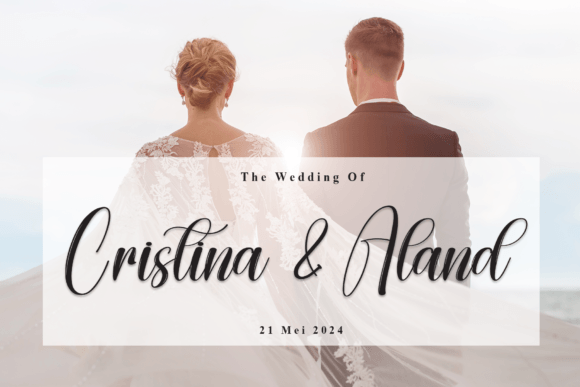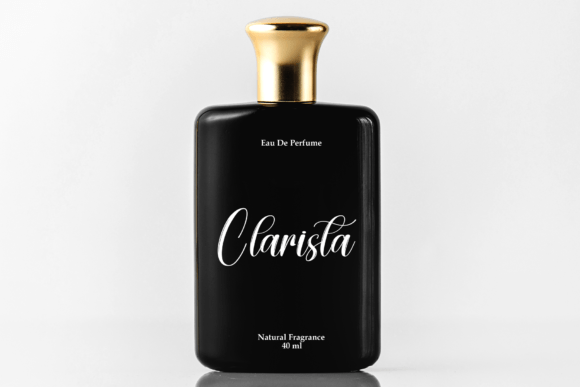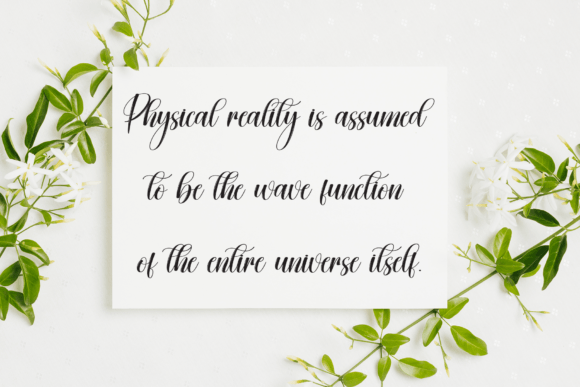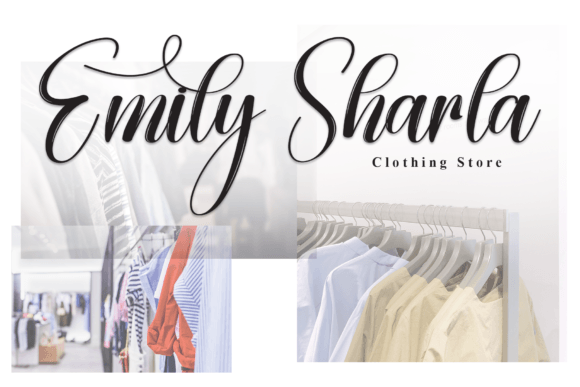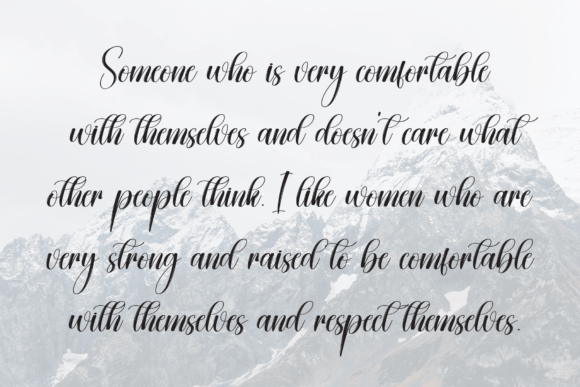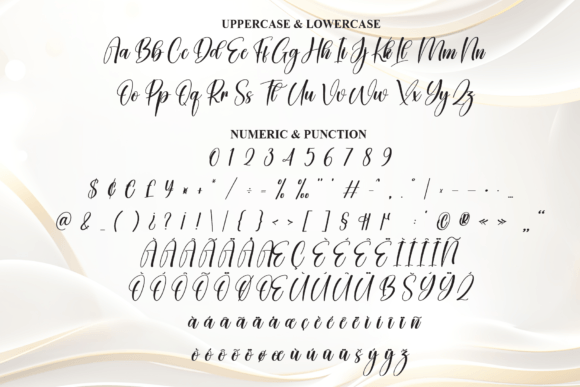
The Perfect Font for Elevating Your Designs
There’s nothing quite like the thrill of creating something from scratch – the blank page, the endless possibilities, the rush of inspiration. For designers, this moment is a sacred one, full of promise and potential. And sometimes, all it takes is the right font to bring a project to life.
Enter the Branding Font, a modern and charming handwritten font that exudes elegance and sophistication. Perfect for upscale invitations, personal branding, and chic editorial designs, this font is a designer’s dream come true. Its graceful, flowing strokes and refined character make it an instant favorite among creatives, who appreciate its ability to add a touch of warmth and personality to any project.
Whether you’re working on a high-end campaign or a personal passion project, the Branding Font is a valuable addition to your toolkit. Its unique charm and sophistication make it the perfect choice for designers who want to elevate their work and leave a lasting impression.
Branding Font Key Features
- Unique Characteristics: Features a custom-designed letterform with subtle flair and rounded edges, creating a friendly and approachable aesthetic.
- Weight and Style Options: Offers a range of weights and styles, including Light, Regular, Bold, and Italic, allowing designers to create visually appealing and consistent typography.
Branding Font Review
I recently had the chance to work with the ‘Branding Font’ and here’s my honest review.
- ✨ Unique style: The font has a distinct, modern aesthetic that can add a touch of sophistication to any brand.
- ✨ Customizable: The font is highly customizable, allowing designers to adjust the style, size, and spacing to fit their needs.
- ✨ Versatile: The font can be used for a wide range of applications, from logos to body text, and even for digital and print media.
- ⚠️ Limited character set: The font’s character set is relatively small, which can limit its use in certain situations.
- ⚠️ Difficult to read at small sizes: The font’s unique style can make it difficult to read at small sizes, which can be a challenge for digital applications.
The ‘Branding Font’ is a solid choice for designers looking for a modern, sophisticated font. While it has some limitations, its unique style and customization options make it a great option for brands looking to stand out. However, it may not be the best choice for applications where readability is a top priority.